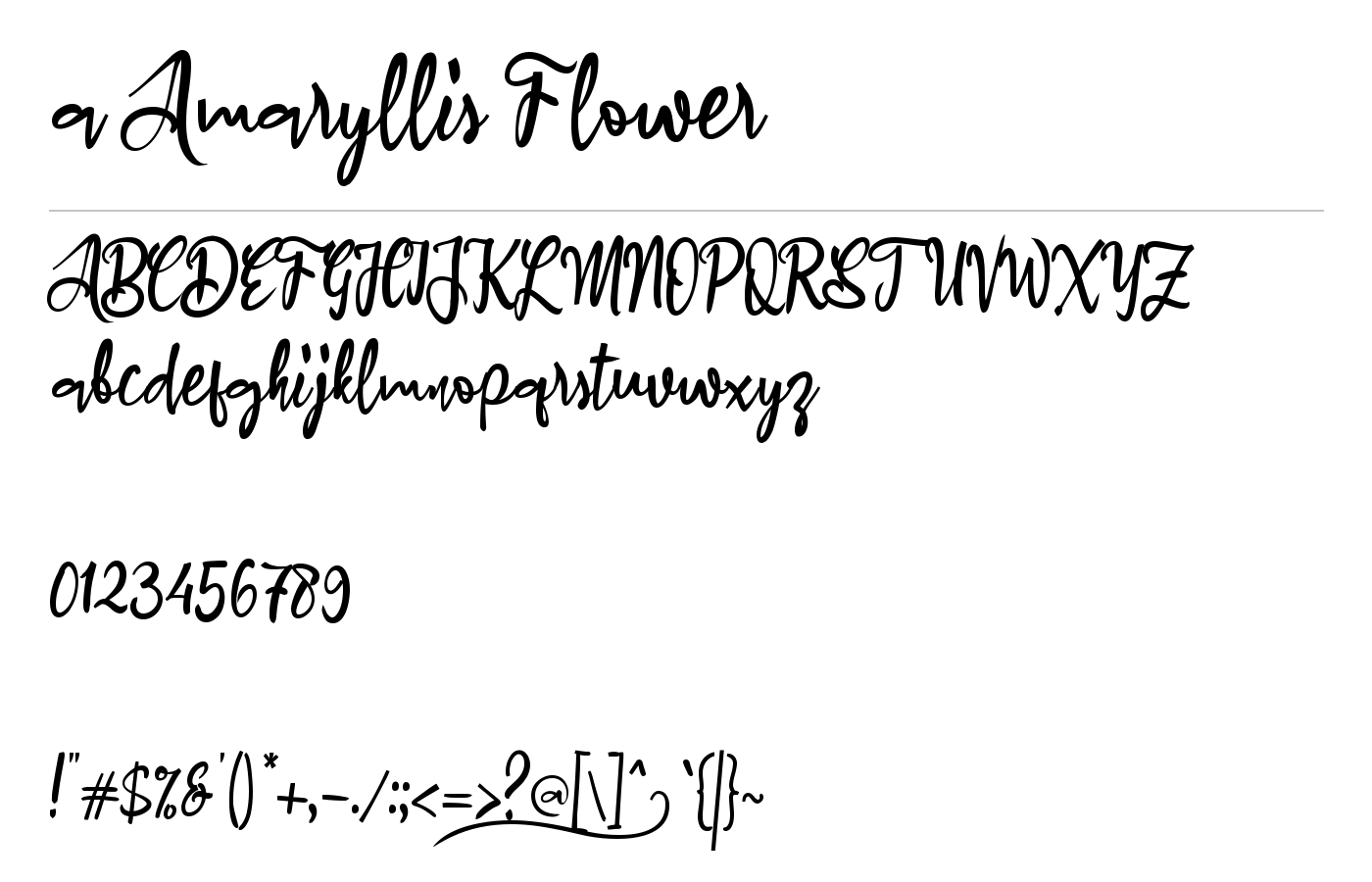
Amaryllis Flower is a delicate and elegant script font with a handwritten feel, featuring smooth, flowing strokes and a graceful, feminine style. Its moderate contrast and slightly narrow width make it ideal for invitations, branding, and decorative text where a personal, charming touch is desired. This font works beautifully for fashion, wedding, and lifestyle projects that seek a warm and inviting aesthetic.
a Amaryllis Flower Font
About a Amaryllis Flower Font